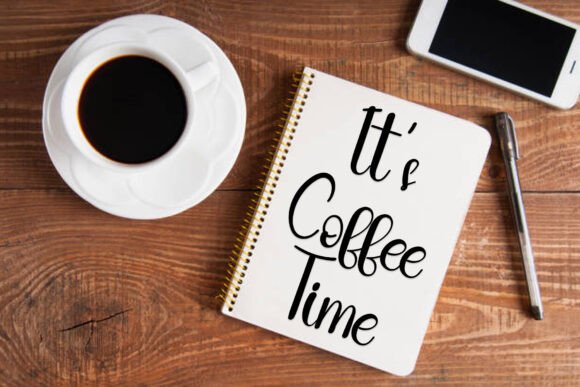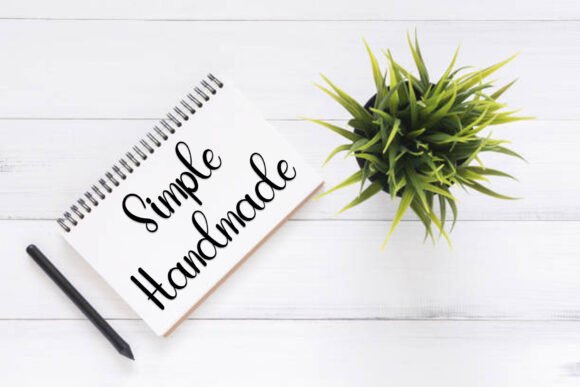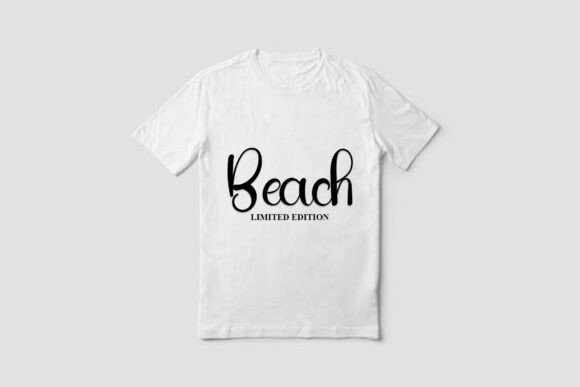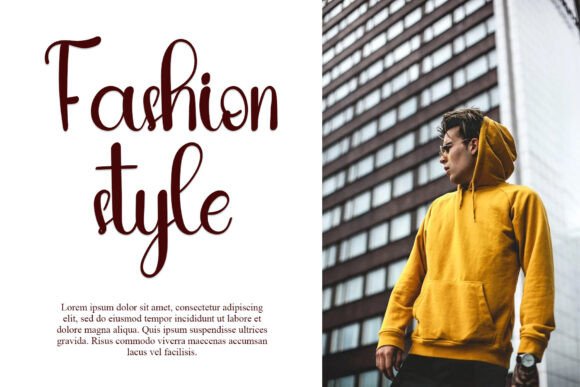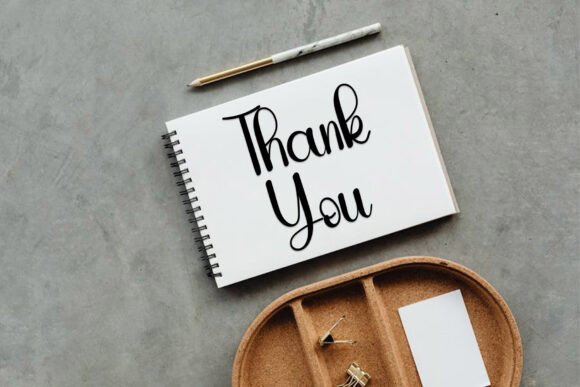
The Allure of the Darling Font: Bringing Charm to Your Designs
Have you ever been captivated by the perfect blend of elegance and whimsy in a handwritten font? For designers, that moment of discovery is like finding a treasure trove of creative possibilities. It was exactly this feeling that led us to the enchanting Darling Font, a true gem in the world of typography.
This lovely font is more than just a pretty face – it’s a masterclass in conveying warmth and personality through elegant curves and fluid strokes. Whether you’re crafting a wedding invitation, a greeting card, or a brand identity, the Darling Font adds a touch of sophistication and charm that’s hard to resist.
As a designer, you know the value of a versatile font that can elevate your projects and leave a lasting impression. The Darling Font is an exceptional choice for anyone looking to infuse their designs with a sense of elegance and refinement.
Darling Font Key Features
- Font Family: Darling Font is a modern script font designed to convey elegance and sophistication.
- Unique Characteristics: Features a unique, flowing script style with subtle flair and elegance, making it perfect for creative projects and branding.
Darling Font Review
I must say, I’m quite impressed with the Darling Font. Here are some things that I think work well:
- ✨ Elegant and refined aesthetic: The font has a sophisticated look that’s perfect for luxury brands, high-end products, or anything that requires a touch of elegance.
- ✨ Highly customizable: With over 200 glyphs, you can customize the font to fit your needs, making it a great choice for designers who value flexibility.
- ✨ Wide language support: The font supports a wide range of languages, making it a great choice for global brands or companies that cater to diverse audiences.
However, there are a few limitations that I’d like to mention:
- ⚠️ Limited contrast: While the font is elegant, it may not be the best choice for designs that require high contrast or bold statements.
- ⚠️ Limited font sizes: The font may not be the best choice for very small or very large font sizes, as it may become difficult to read.
Overall, I think the Darling Font is a solid choice for designers who value elegance and sophistication. While it may have some limitations, it’s a great addition to any designer’s toolkit. I’d definitely recommend it for projects that require a touch of luxury and refinement.
Getting the Most Out of “Darling Font”
Here are some tips for getting the most out of “Darling Font”:
- Use “Darling Font” for titles and headings to add a touch of elegance and sophistication.
- Pair “Darling Font” with other fonts to create a unique and stylish typography.
Here are some common use cases for “Darling Font”:
- Wedding invitations and
Great Vibes is a modern, elegant font that features a unique blend of classic and contemporary elements. It is ideal for use in branding, advertising, and editorial design. Compared to Darling Font, Great Vibes has a more refined and sophisticated feel, making it suitable for use in high-end applications and luxury brands.
Q: What is the recommended font size for Darling Font?
The recommended font size for Darling Font is between 12pt and 18pt. This range provides optimal readability and legibility. However, you can adjust the font size according to your design requirements and application needs.